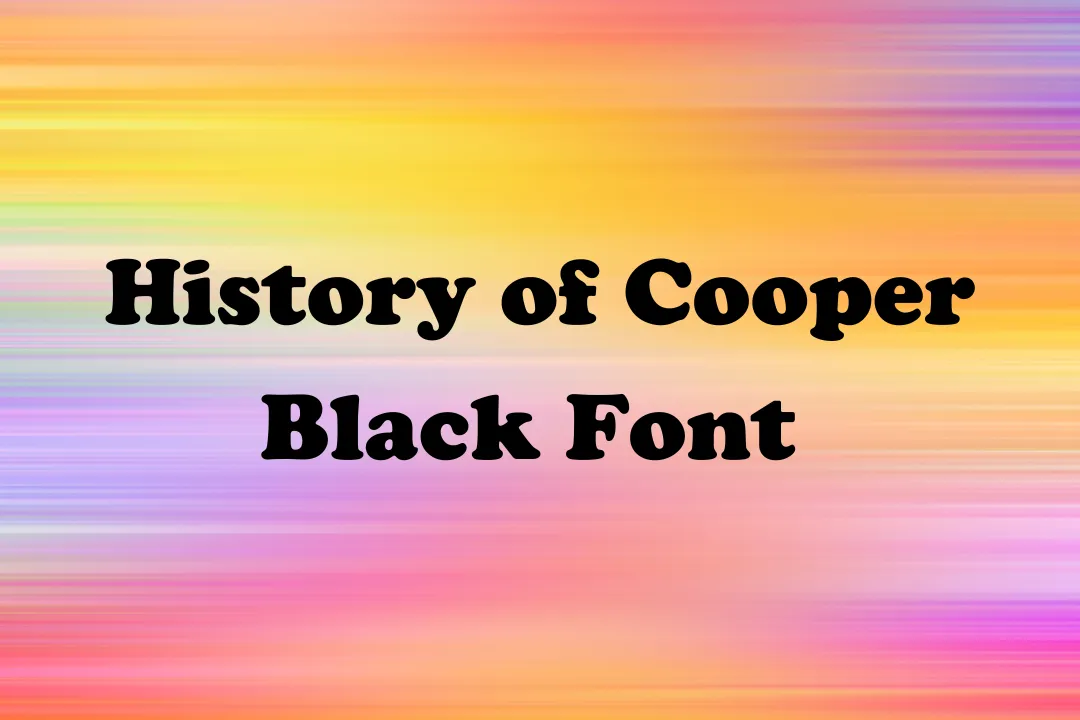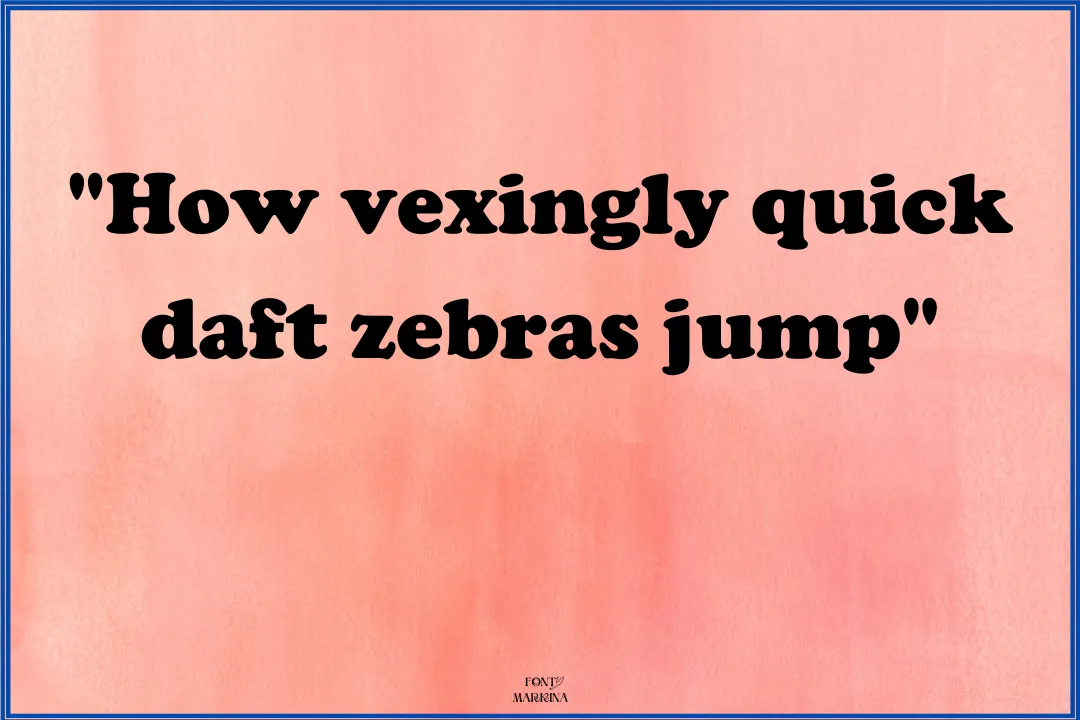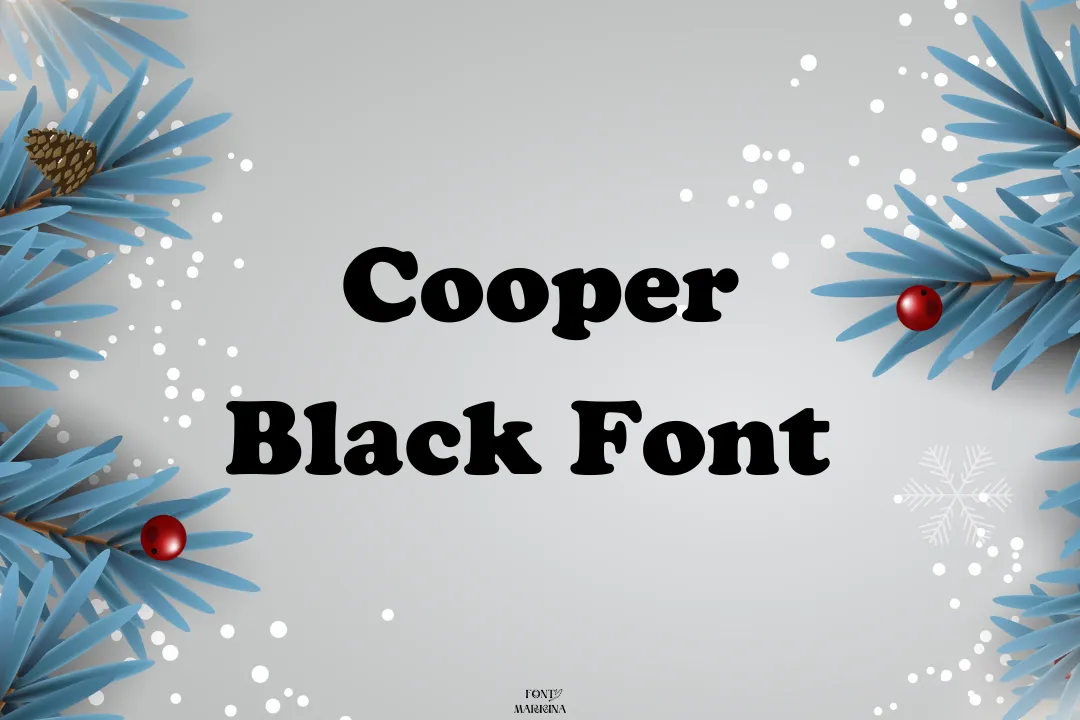
About Cooper Black Font
Cooper Black Font is a thick, bold font. This family was designed by sharp-mind creator Oswald Bruce Cooper in the year 1922. Finally, this family was released by the source of Barnhart Brothers & Spindler. It’s often used for headlines and titles, and it has a fun and playful look to it. The letters are rounded and chunky, making them easy to read even at smaller sizes.
About Designer
Oswald Bruce Cooper was an American texture designer and also a lecturer. He was born in the year 1879 and died in the year 1943. He is known for organizing the popular font Cooper Black, which was finally released in the year 1922. Bruce was a student at the Art Institute of Chicago and later taught at several schools.
He was also a fellow of the American Institute of Graphic Arts. The designer created several other typefaces during his career, but It is considered his most famous and enduring design.
History of Cooper Black Font
Cooper Black is a popular texture, it became widely popular in the 1960s and 1970s, particularly in the United States. This font was also used in the title sequences of several films and television shows of the era, further popularizing the font.
The font faced a decline in popularity in the 1980s and 1990s, as many designers began to favor more modern, sans-serif typefaces. However, it has seen a resurgence in popularity in recent years, particularly in the world of digital design and branding.
Cooper Black’s bold and rounded letterforms make it a font that can easily catch attention, and its playful and casual style is often used in designs that aim to be fun and approachable. It is widely available on most operating systems and design software and comes in different variations such as bold, italic, condensed, and light.
Who Can Use Cooper Black Font
Headlines and Titles:
Cooper Black is often used for large text, such as headlines and titles because its thick letters are easy to read even at smaller sizes.
Advertising and Packaging:
The font’s bold and distinctive style makes it a popular choice for advertising and packaging design.
Retro and Vintage Designs:
Cooper Black’s vintage style makes it a popular choice for designs that aim to evoke a retro or vintage feel.
Posters and Print Media:
The font’s bold and distinctive style makes it well-suited for use in posters and other print media.
Music and Entertainment Industry:
The font was used in many album covers, posters, and flyers of music bands, especially in the rock and roll and disco genres.
Web Design:
The font is also used in web design to create bold and attention-grabbing headlines and titles.
Logos and Branding:
Cooper Black can be used to create memorable and distinctive logos and branding elements.
Social Media:
The font is also used in social media posts, especially in memes and funny content, as it adds a playful and casual style to them.
What font is similar to Cooper Black?
Chunky, Fatboy, Heavyweight, and Mamma Mia Font are similar to Cooper Black font.
Who is the author of Cooper Black Font?
The author of Cooper Black font is Oswald Bruce Cooper.